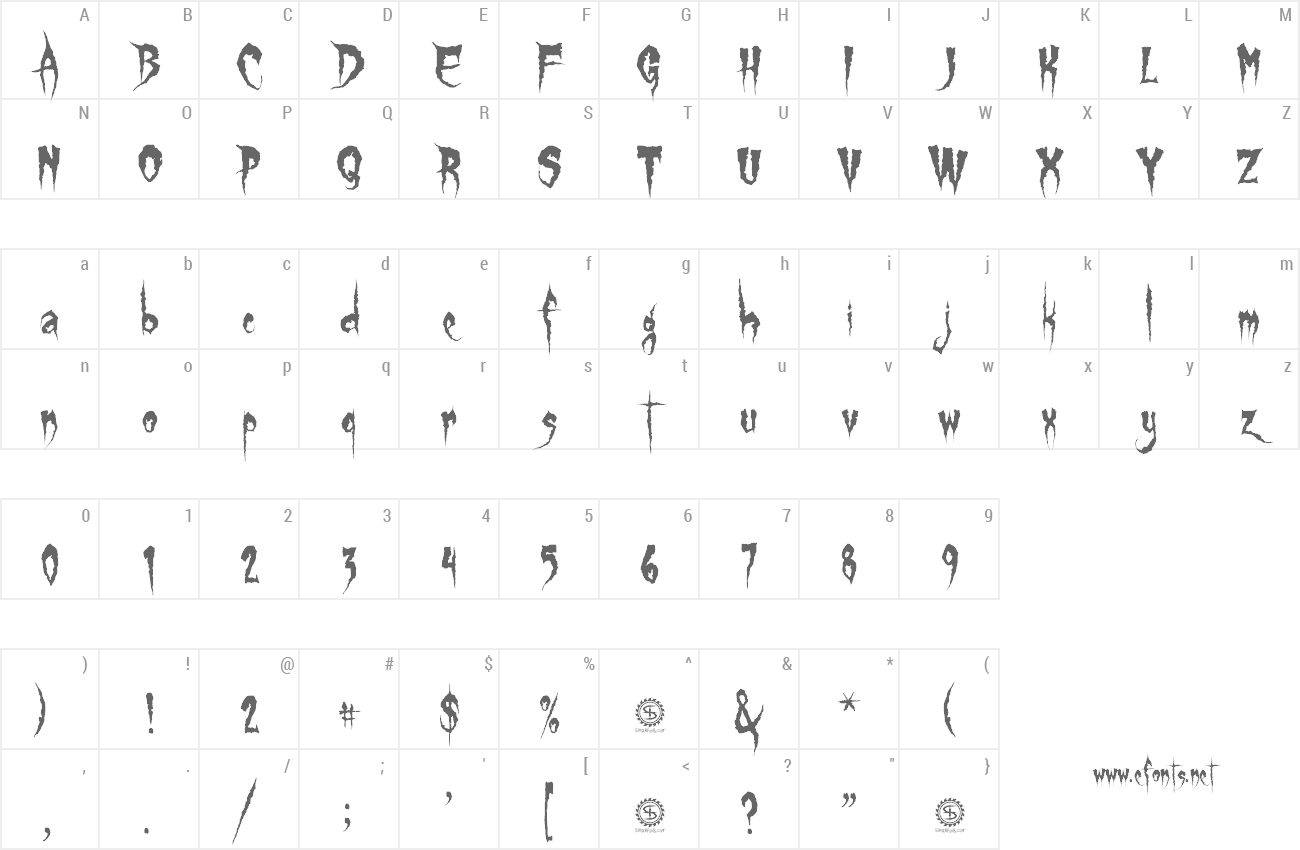
| Font name: | Gypsy Curse |
| Author: | Sinister Fonts |
| Note by Sinister Fonts | |
| Created 2005 while watching "Lord of Illusions." Inspired by horror movie poster lettering from the mid-20th century. |